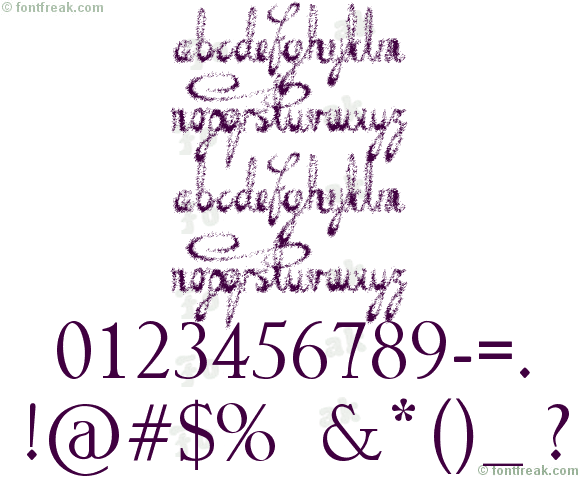
Decayed in Sixty Seconds
The "Decayed in Sixty Seconds" font by Jonathan S. Harris is a captivating display typeface that embodies a unique blend of artistic decay and elegance. This freeware font features a handwritten style with an organic, almost spontaneous aesthetic. Its visual characteristics include varying stroke weights that contribute to a sense of depth and texture. The letters exhibit a rough, distressed quality, with soft curves and sharp angles that create an engaging contrast. The spacing between characters is intentionally loose, allowing each letterform to breathe while still maintaining a cohesive appearance.
This font is particularly well-suited for a variety of creative applications. Its distinctive style makes it an excellent choice for tattoo designs, lending a rebellious edge to body art. Additionally, it can enhance the atmosphere of movie posters, especially in genres like horror or drama, by evoking a sense of urgency and raw emotion. Restaurant menus aiming for a rustic or artisanal feel will benefit from its unique charm, while branding materials for small businesses looking to stand out can leverage its eye-catching presence. Graphic designers and content creators will find "Decayed in Sixty Seconds" an inspiring choice for projects that require a touch of whimsy or a bold statement.
What sets the "Decayed in Sixty Seconds" font apart is its ability to convey a narrative through its design. It captures the essence of imperfection and the beauty of decay, making it a compelling option for those seeking to express creativity in a visually striking manner. Whether for personal projects or professional endeavors, this font offers a distinctive flair that resonates with audiences. For those interested in incorporating this unique typeface into their work, the "Decayed in Sixty Seconds font free download" is an opportunity not to be missed.